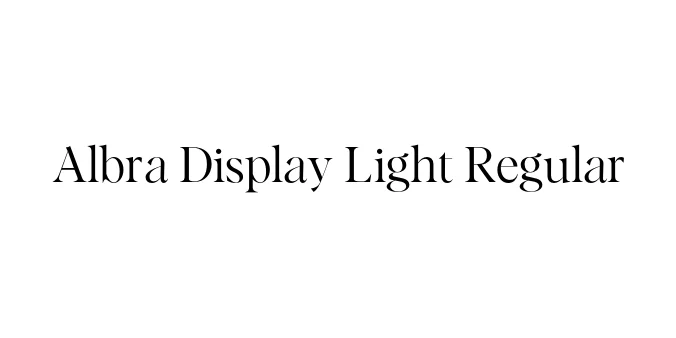
Albra Display Light Regular
Designed by BumbumType (Tomi Vollauschek)
Albra Display Light Regular is a sophisticated high-contrast serif typeface designed by the creative studio BumbumType. It belongs to the larger Albra collection, which is celebrated for its blend of classical elegance and contemporary flair. This specific weight, the Light Regular, is characterized by its razor-sharp serifs and extreme contrast between thick and thin strokes, making it an exquisite choice for high-end visual communication and luxury aesthetics.
Drawing inspiration from late 20th-century transitional and modern serifs, Albra Display Light Regular offers a unique personality that feels both timeless and current. Its generous x-height and refined proportions ensure that it maintains a commanding presence on the page, while its OpenType features provide designers with the flexibility needed for complex layouts. It is a font that transforms simple text into a statement of style, particularly in digital and print editorial environments.
Albra Display Light Regular Best Uses
Perfect for high-fashion magazine headlines and sophisticated mastheads.
Ideal for luxury beauty brands, high-end jewelry logos, and premium identities.
Adds a touch of class to cosmetic boxes, wine labels, and luxury goods.
Striking for hero sections and large typographic statements on portfolio sites.